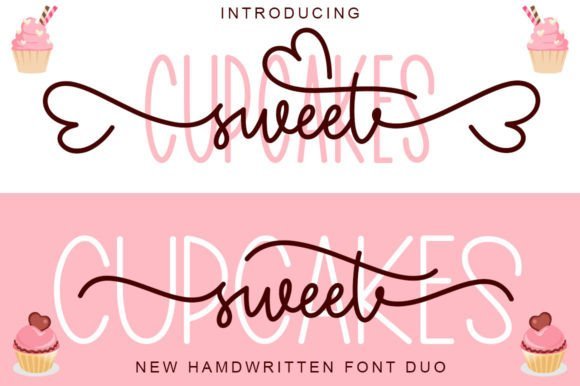
Designing with a Sweet Touch
As a designer, there’s nothing quite like the thrill of bringing a creative idea to life. It’s that moment when you realize your vision is taking shape, and you can’t wait to share it with the world. For me, it’s the moment when a font perfectly captures the essence of a project, elevating it from mere words to a beautiful work of art.
That’s exactly what Cupcakes Sweet Duo Font does. This enchanting dual font combines the sophistication of sans serif with the whimsy of a script, creating a unique typographic experience that’s sure to captivate. Whether you’re crafting endearing greeting cards or designing captivating headlines, Cupcakes Sweet Duo Font is the perfect choice. With its seamless integration and effortless accessibility, this font is a valuable addition to any designer’s toolkit.
Thanks to its integrated PUA encoding, every glyph and ligature is easily accessible, making it a breeze to use. The result is a design canvas that’s elevated to new heights, blending typographic charm with functional brilliance.
Cupcakes Sweet Duo Font Key Features
- Unique Characteristics: Includes cursive and script styles for a whimsical feel, perfect for baking-related designs and cupcake-themed graphics
- Font Style: Sweet Duo comes in two styles, Sweet and Duo, offering a versatile range of design options
Cupcakes Sweet Duo Font Review
Overall, I think the Cupcakes Sweet Duo Font is a cute and charming addition to any design project. Here are some of its strengths:
- ✨ Unique aesthetic: The font has a playful, whimsical feel that’s perfect for designs that need a touch of sweetness.
- ✨ Versatility: It comes in both bold and regular weights, making it easy to use in a variety of contexts.
- ✨ Easy to read: Despite its cursive style, the font is still easy to read, even at smaller sizes.
However, I do have a few reservations:
- ⚠️ Limited language support: The font only includes Latin-based languages, which may be a problem for designers working on projects that require other languages.
- ⚠️ Not ideal for long blocks of text: The font’s cursive style can make it difficult to read when used in large blocks of text.
- ⚠️ May not be suitable for formal designs: While the font is perfect for playful designs, it may not be the best choice for more formal or professional projects.
Overall, I think the Cupcakes Sweet Duo Font is a fun and useful addition to any designer’s toolkit. Just be aware of its limitations and use it wisely.
For the best results, use the Cupcakes Sweet Duo Font in conjunction with bold and italic styles to create visual contrast.
Experiment with different font sizes and colors to create a cohesive design.
The Cupcakes Sweet Duo Font is ideal for:
Food and dessert branding
Children’s party decorations and invitations
Alternatives to Cupcakes Sweet Duo Font
Creamery Font
Creamery Font is a beautiful, elegant font suitable for bakeries, cafes, and other food-related businesses. It has a similar vintage feel to Cupcakes Sweet Duo Font, but with a more refined and sophisticated look. It’s ideal for use on packaging, menus, and marketing materials where a high-end, premium feel is desired.
Buttercream Script Font
Buttercream Script Font is a playful, cursive font perfect for creating a whimsical and charming atmosphere. While it’s more casual than Cupcakes Sweet Duo Font, it still conveys a sense of warmth and friendliness. It’s suitable for use on social media, blogs, and other online platforms where a more relaxed tone is desired.
Vanilla Script Font
Vanilla Script Font is a modern, elegant font that’s perfect for creating a clean and minimalist look. It has a similar feel to Cupcakes Sweet Duo Font, but with a more streamlined and contemporary aesthetic. It’s ideal for use on websites, magazines, and other publications where a sophisticated and professional look is desired.
What is the recommended font size for using the Cupcakes Sweet Duo Font?
The recommended font size for using the Cupcakes Sweet Duo Font is between 12pt and 24pt. This range ensures optimal legibility and visual appeal. However, feel free to experiment with different font sizes to achieve the desired effect for your design project.